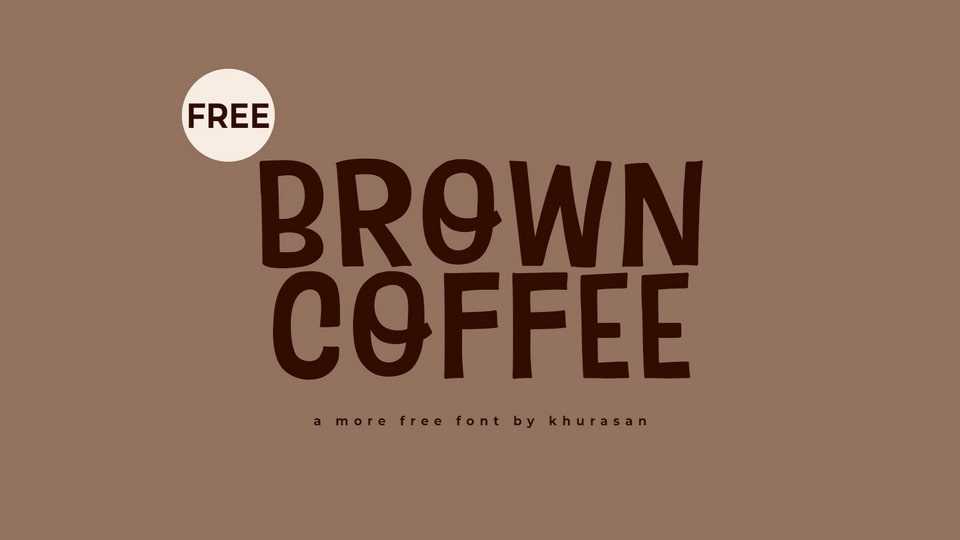
Download Brown Coffee font, a playful and quirky hand-crafted typeface that brings a burst of personality to your typography. It features whimsical, irregular letterforms with delightful details and a lively spirit.